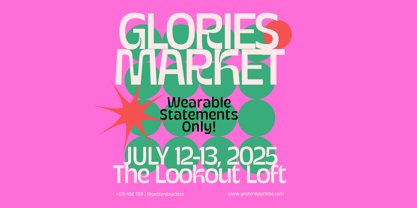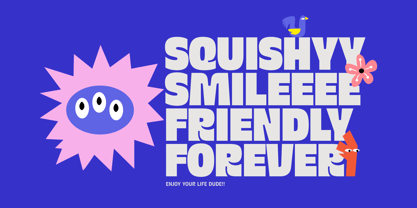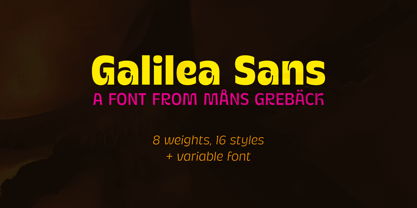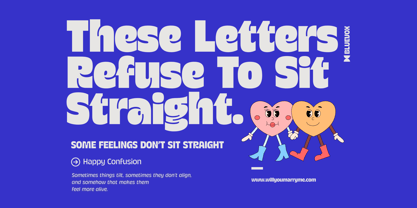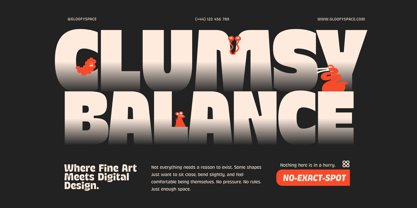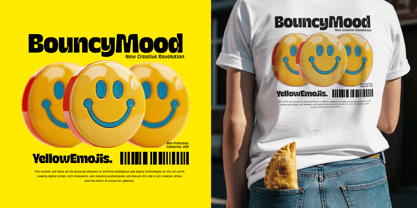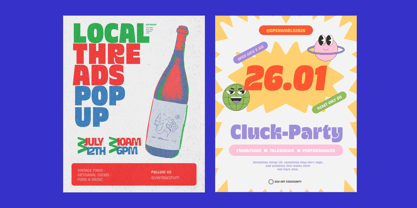
Galilea Sans
von Mans Greback
Galilea Sans is a contemporary sans serif family built around clarity, balance, and a calm sense of confidence. The design is clean and structured, with soft curves and open shapes that keep the letterforms friendly rather than strict. Across its full range of weights, Galilea Sans maintains steady proportions and an even rhythm, making it comfortable to read while still visually distinct. Subtle rounding and thoughtful spacing give the typeface a human tone that carries through both upright and italic styles. Its whitespaces and inktraps have characteristic and friendly appearances. With a complete weight spectrum from Thin to Black, including matching italics and a variable version, Galilea Sans adapts smoothly to different typographic needs. The heavier weights feel solid and grounded, while the lighter cuts remain airy and precise, all sharing the same underlying character. The font is built with advanced functionality and guaranteed top-notch quality, containing stylistic and contextual alternates, ligatures and more automatic and manual features; all to give you full control and customizability. It has extensive lingual support, covering all Latin-based languages, from North Europa to South Africa, from America to South-East Asia. It contains all characters and symbols you'll ever need, including all punctuation and numbers. Designed by Mans Greback, Galilea Sans was created with everyday typography in mind. The focus was on building a versatile sans serif that feels stable, modern, and natural, allowing it to fit seamlessly into a wide range of visual expressions without drawing unnecessary attention to itself.